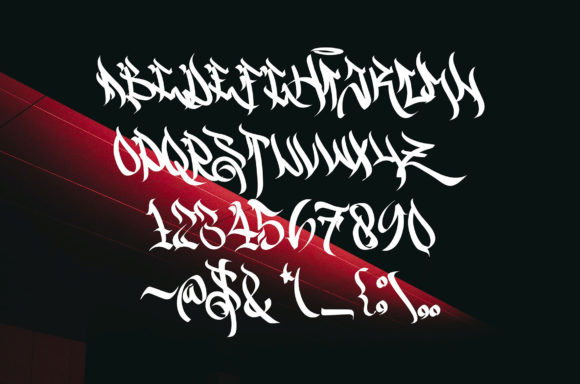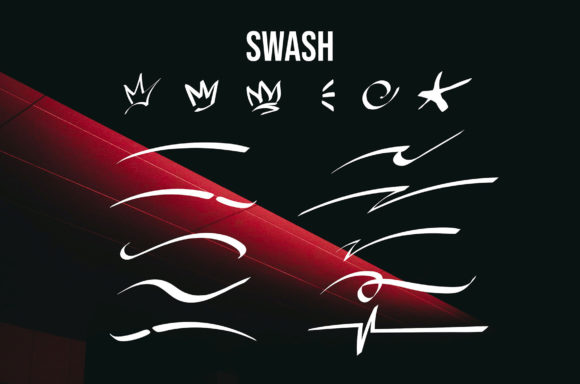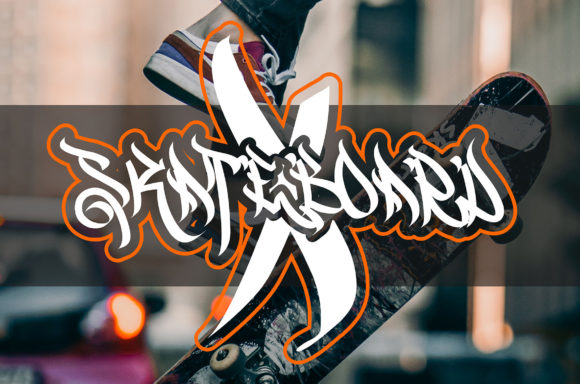
Introduction to Dragon Scribble Font
Enter the Dragon Scribble Font, a bold, assertive, and graffiti styled blackletter font that’s sure to leave a lasting impression on any poster, flyer, or print. This high-quality font is a treasure trove of creative possibilities, waiting to be unleashed on your next project. With a transparent background, it’s the perfect addition to any design, and the best part? It’s available for a free download, making it an accessible resource for designers of all levels.
- High-quality, unique design for creative projects and artistic expressions
- Includes a large character set, covering a wide range of languages and characters
- Perfect for adding a touch of whimsy and fantasy to any design, from logos to illustrations and beyond
I recently had the chance to experiment with the Dragon Scribble Font, and I must say it’s been a game-changer for my creative projects. The font is a high-quality, free download that’s perfect for designers looking for a unique design resource.
- ✨ High-quality design: The font is well-designed, with intricate details and a smooth texture.
- ✨ Versatility: The font is suitable for a wide range of creative projects, from logos to print materials.
- ✨ Transparent background: The font is available with a transparent background, making it easy to layer and composite.
- ⚠️ Limited font styles: While the font is well-designed, it’s only available in a single style, which may limit its use in certain contexts.
- ⚠️ Limited character set: The font may not include the full range of characters and symbols that you need for a particular project.
Overall, I’m impressed with the Dragon Scribble Font and would definitely recommend it to designers looking for a unique design resource. With a little creativity, you can achieve some amazing results with this font.
The Dragon Scribble Font is ideal for use in social media graphics, blog posts, and advertising materials. Its unique design makes it perfect for creative projects that require a touch of personality and whimsy.